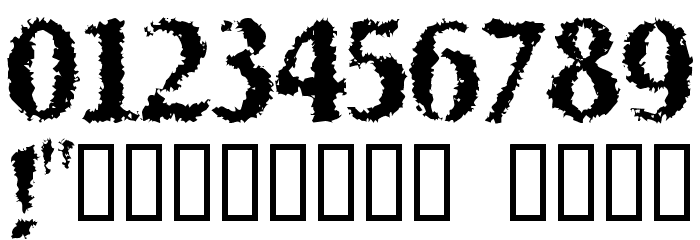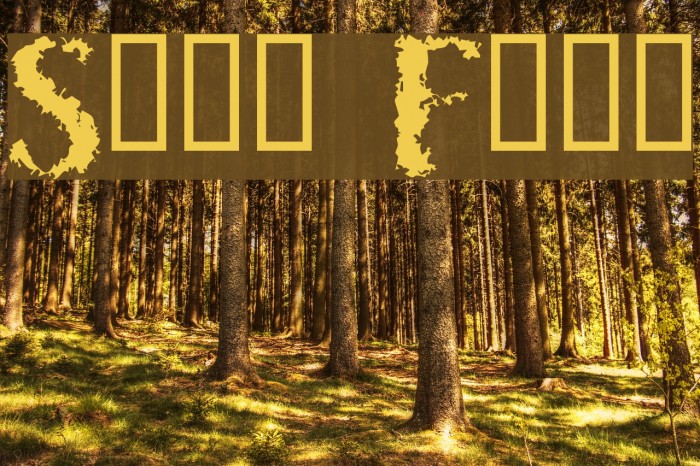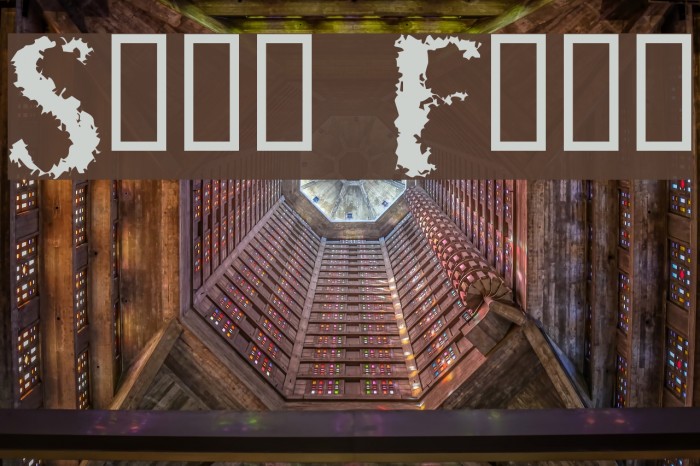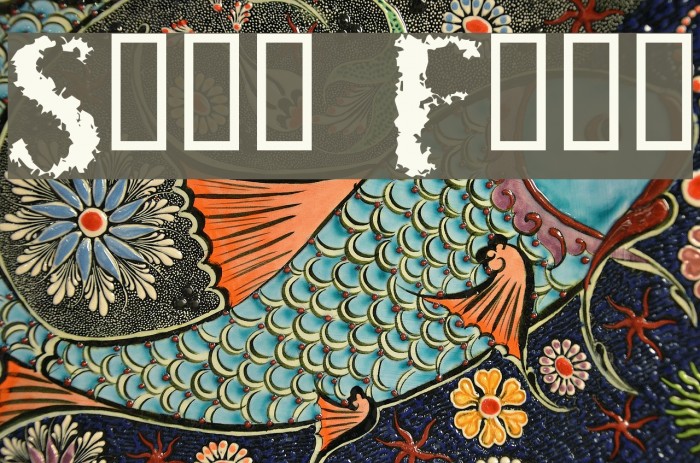
Sand Font
Sand Description
This font features a distinctive, weathered appearance, reminiscent of eroded surfaces or sandblasted textures. The characters are bold and have a rough, uneven edge, giving them a rugged and organic feel. The uppercase letters are particularly striking, with their bold presence and unique texture. The numbers follow the same style, maintaining consistency across the font. This design is perfect for projects that require a natural, earthy aesthetic or a gritty, distressed look. The font's unique style makes it stand out, making it suitable for eye-catching headlines or creative branding projects.
| Proposed Projects | Ideal for nature-themed designs, outdoor event posters, rustic branding, or any project needing a textured, organic look. |